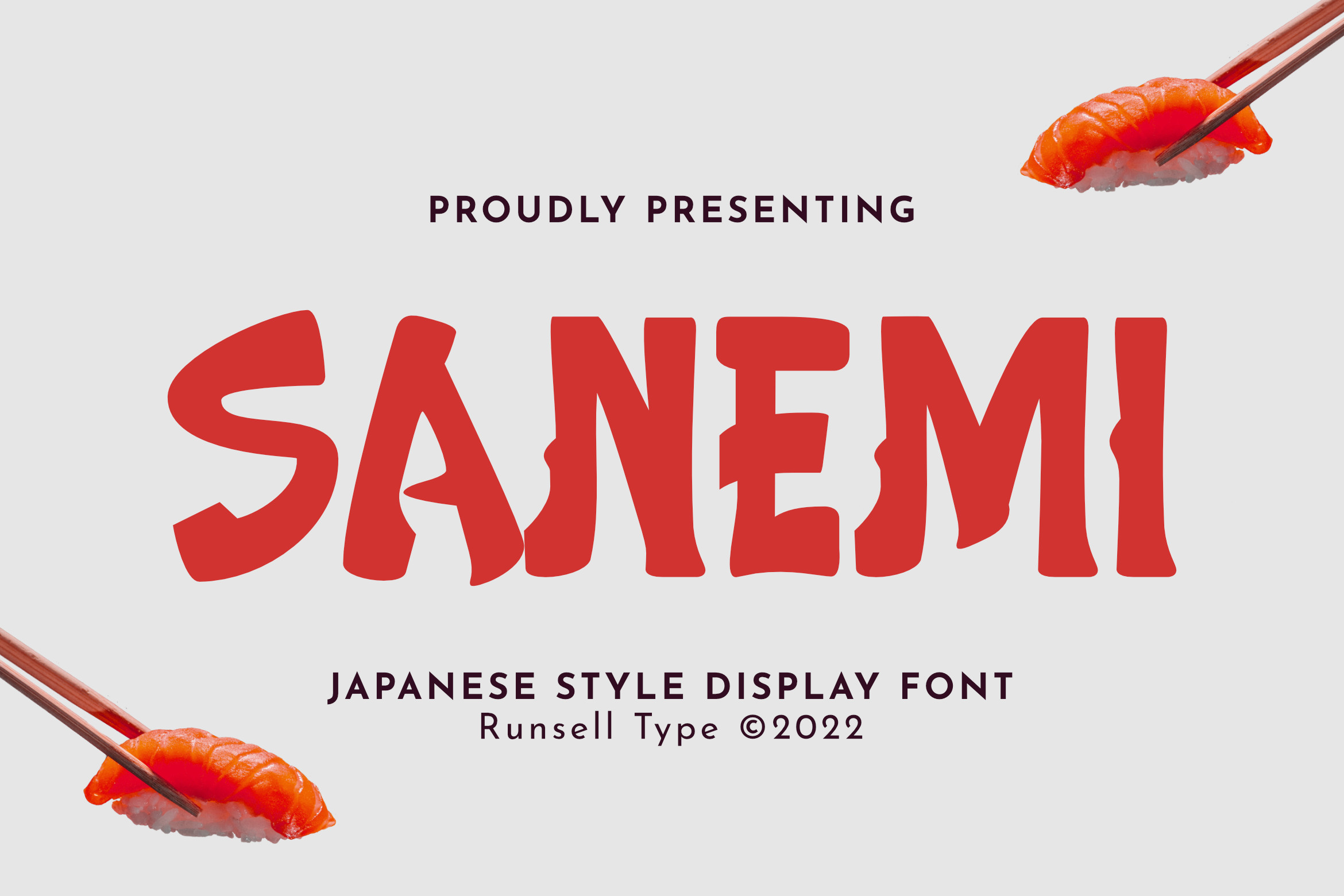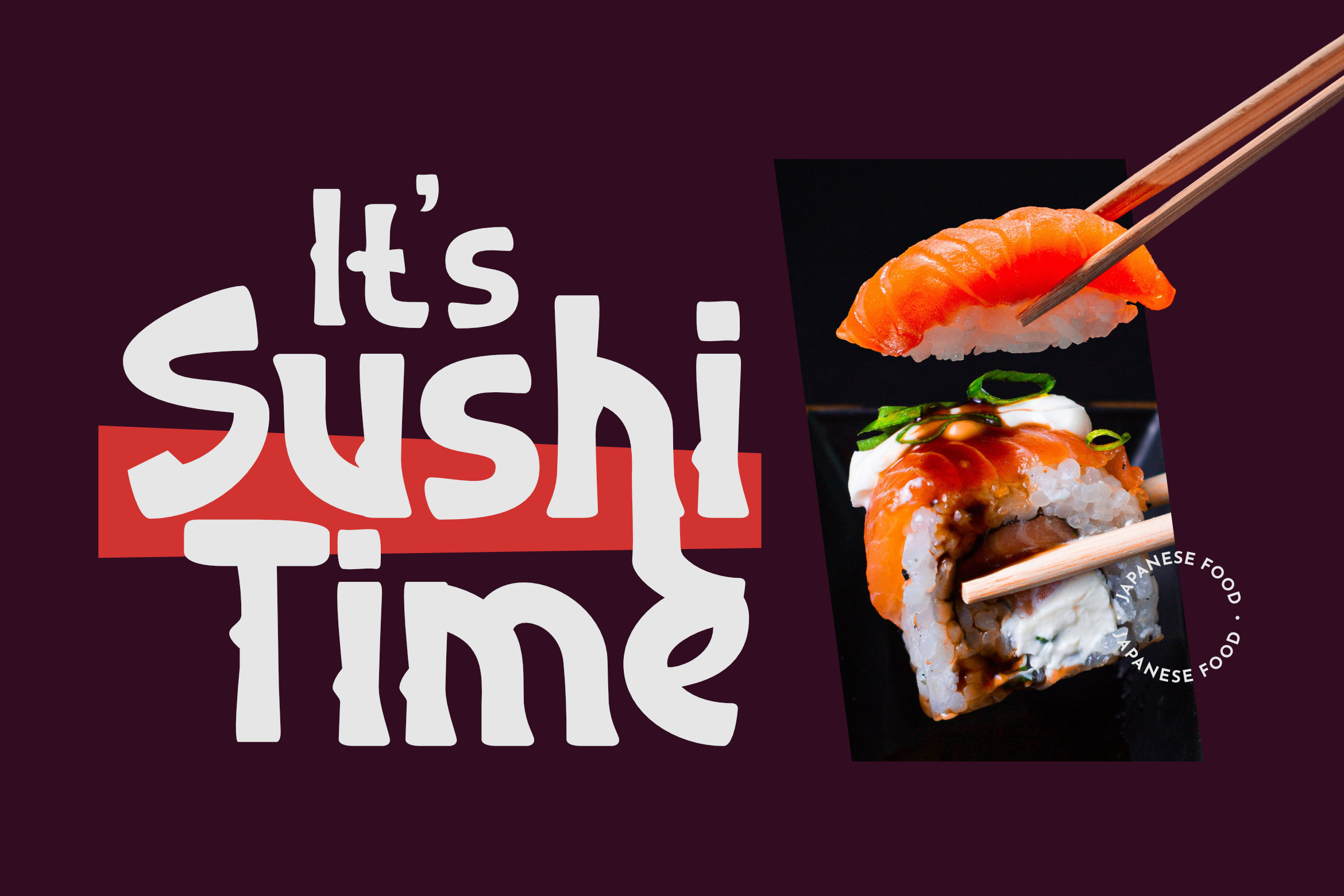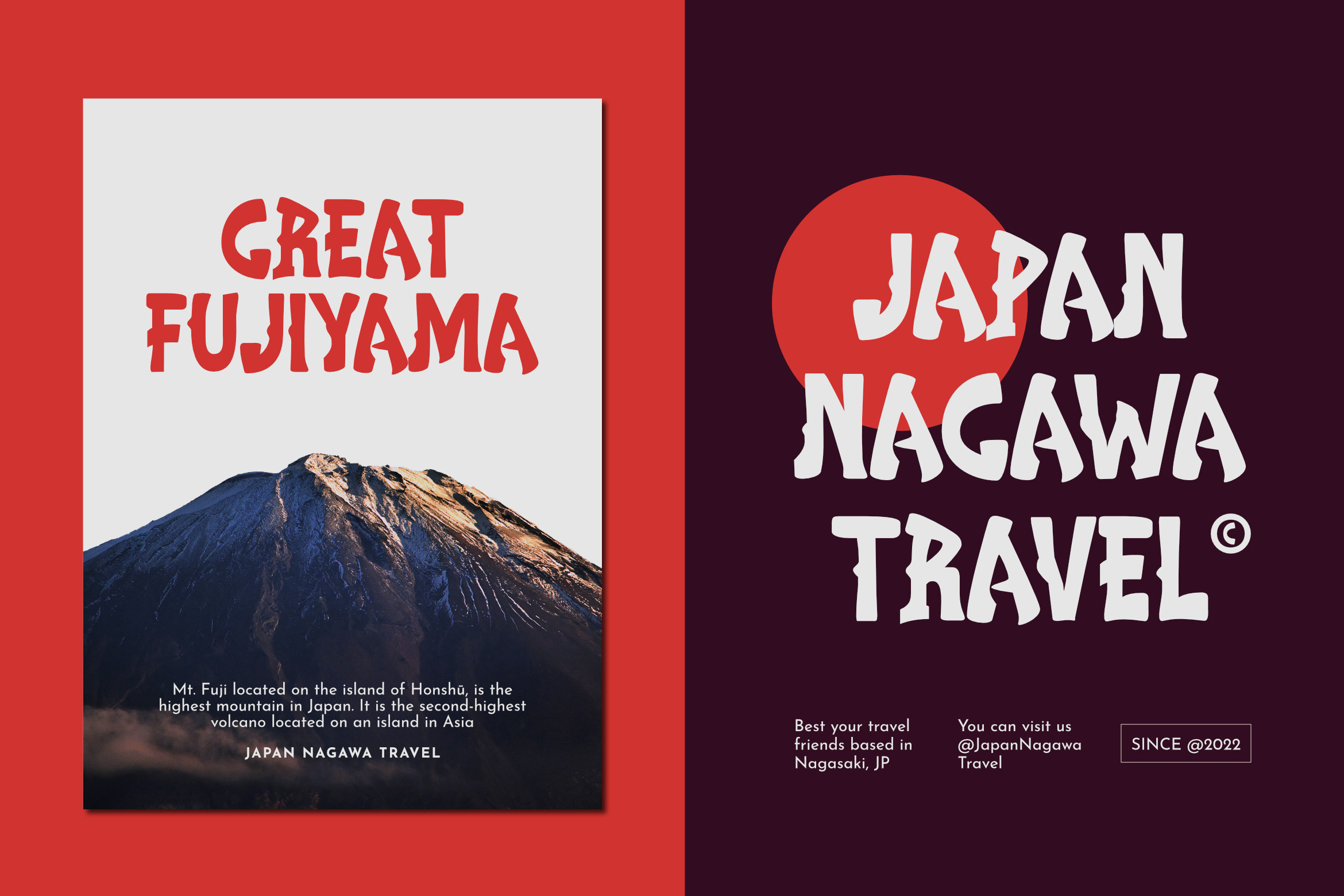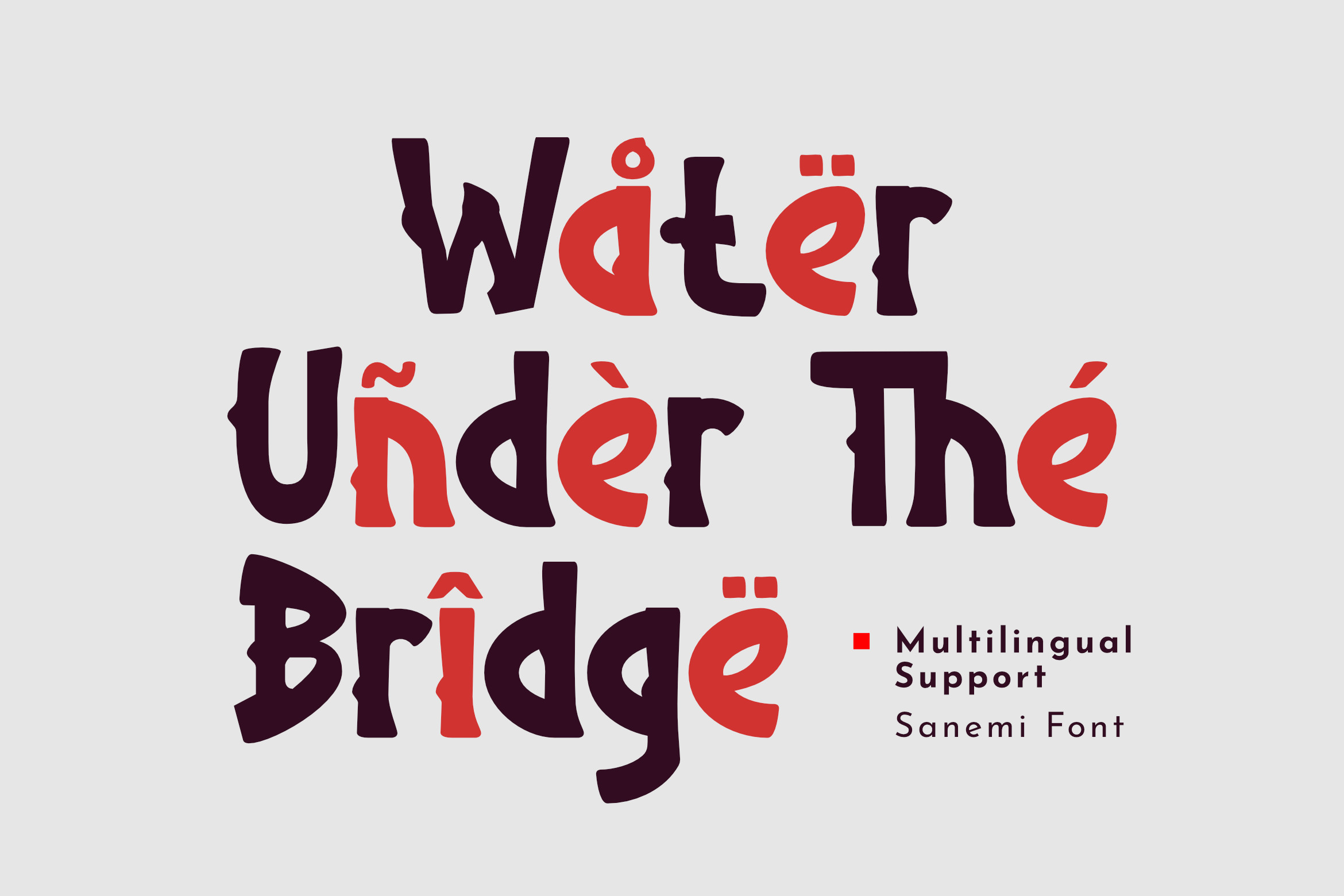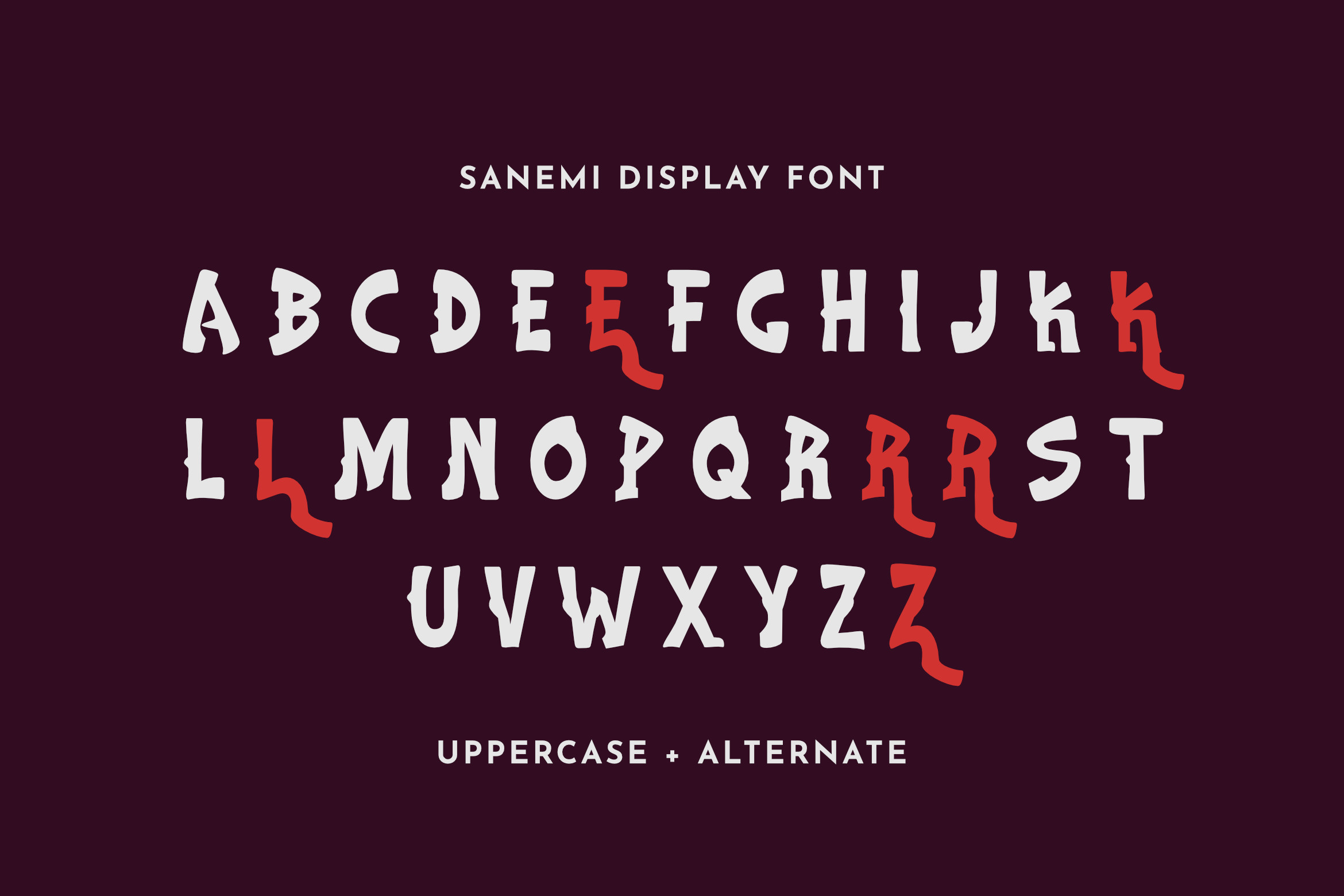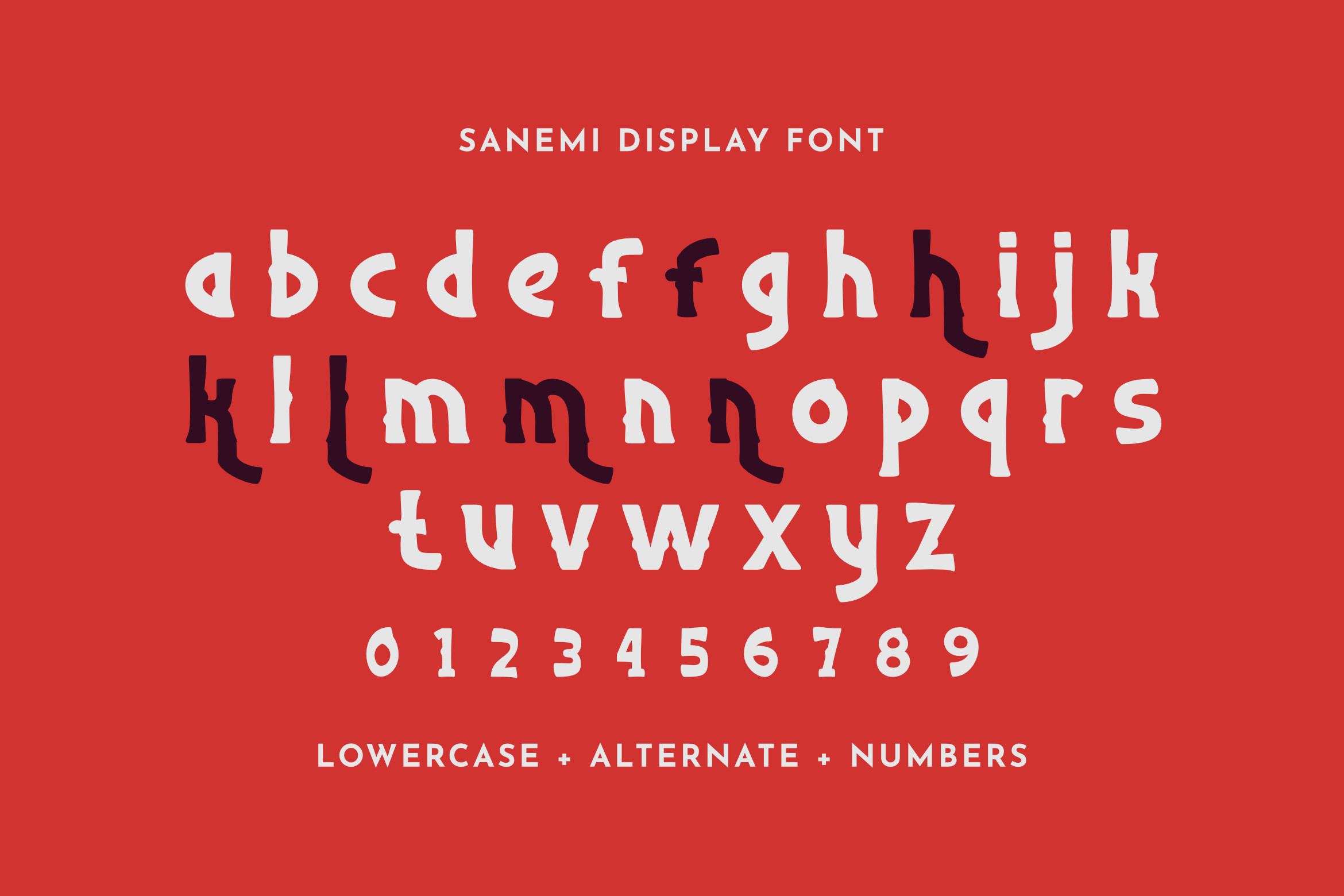
Sanemi is a bold Japanese-style display font that brings an authentic yet playful energy to your visual compositions. Inspired by brush strokes and traditional Kanji aesthetics, its expressive letterforms evoke the rhythm and flair of East Asian calligraphy. The irregular curves and sharp contrasts make Sanemi a perfect fit for branding related to Japanese food, travel, anime culture, or any creative project that seeks an oriental touch.
This font features uppercase and lowercase characters with stylish alternates, multilingual support, and numeric symbols to ensure design flexibility. Sanemi’s handcrafted charm works beautifully in restaurant logos, posters, food packaging, and modern Asian-themed campaigns. Whether you’re launching a sushi bar or creating travel visuals to Japan, Sanemi is designed to stand out and celebrate cultural identity.
Sanemi